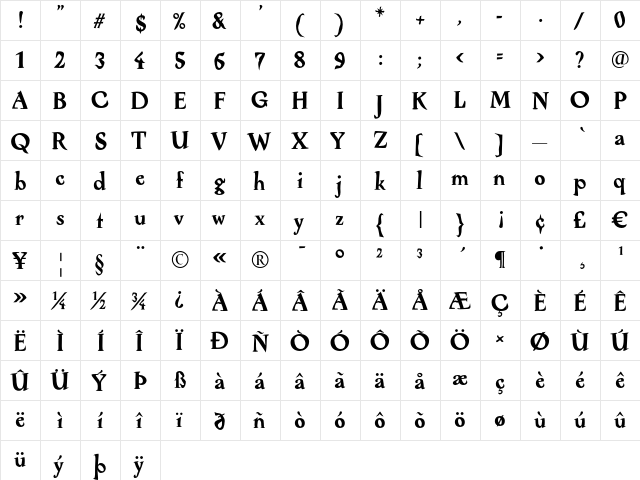
Alcoholica Bold Font Preview
Alcoholica Bold
Alcoholica Bold Font Details
| Foundry | Frantisek Storm, stormtype.com |
Design Context for Alcoholica Typeface
Alcoholica offers clean, dependable letterforms without strong stylistic allegiance, making it a practical choice for designers who need flexibility. The heavy weight commands attention and anchors typographic hierarchies.
Pro Tip: Pair Alcoholica with a font of contrasting weight or personality to build a more expressive typographic hierarchy.